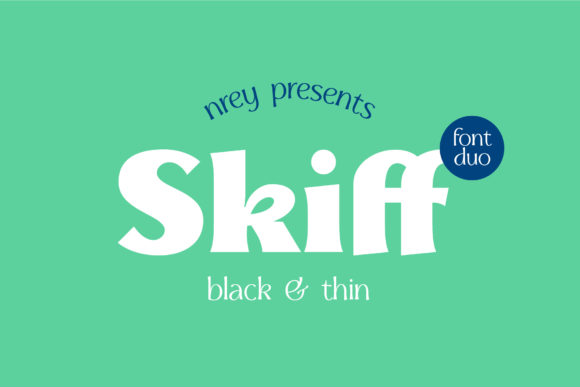
Introducing Skiff Font: A Typographic Masterpiece That Embodies Playfulness and Modernity
Welcome to the world of Skiff Font, a serif masterpiece that seamlessly blends the charm of antique typography with the sleekness of modern sans serif designs. Prepare to be captivated by its visually striking aesthetics that are sure to elevate your creative projects to new heights.
Skiff Font is characterized by its medium contrast, which creates a captivating visual rhythm that draws the eye to every letterform. The subtle, yet sharp serif edges add a touch of elegance and sophistication, giving your designs a timeless appeal.
With Skiff Font, you'll have the power to transform ordinary words into captivating expressions. Its playful nature lends itself perfectly to creating designs that exude a sense of joy and lightheartedness. Whether you're crafting logos, branding materials, or eye-catching headlines, Skiff Font will help you make a statement that resonates with your audience.
But Skiff Font's versatility doesn't end there. Its modern sensibilities make it an excellent choice for contemporary design projects. Its clean lines and crisp details ensure that your designs maintain a sense of sophistication and professionalism.
Created by the talented NREY, Skiff Font is a testament to the artistry and craftsmanship that goes into creating truly exceptional fonts. Its unique style is sure to leave a lasting impression on your viewers, making it the perfect choice for those seeking to make a bold and unforgettable statement.